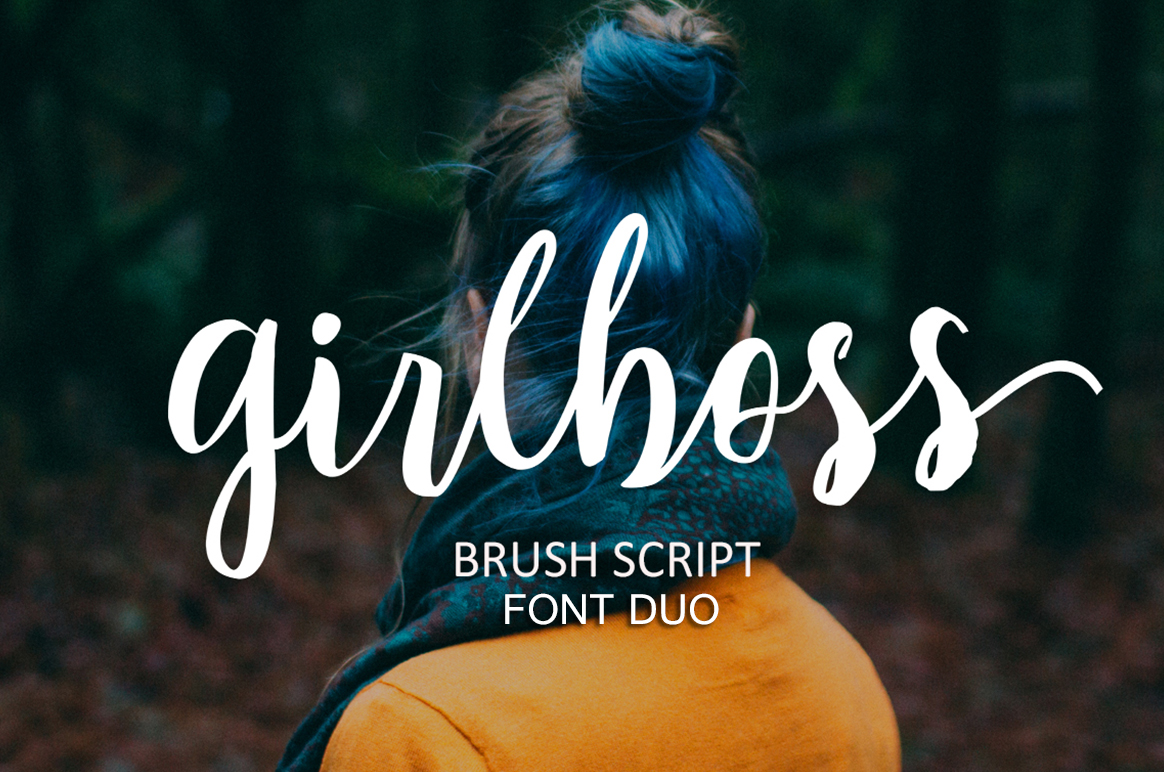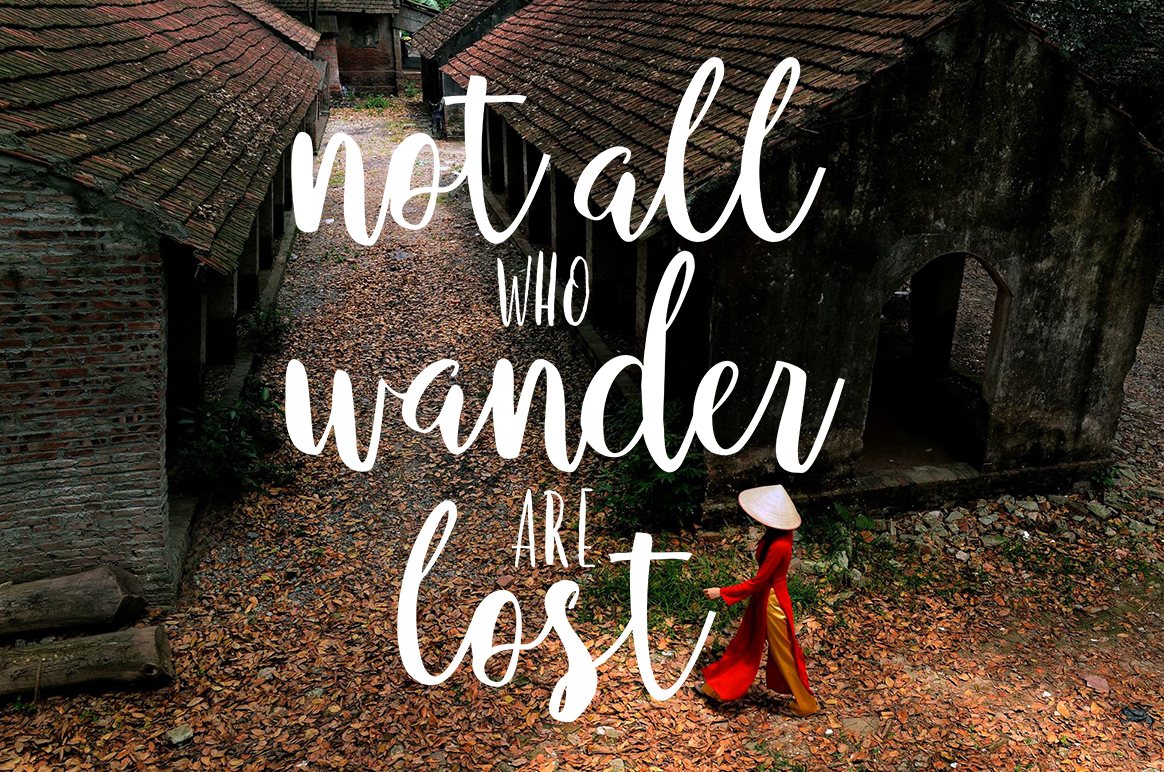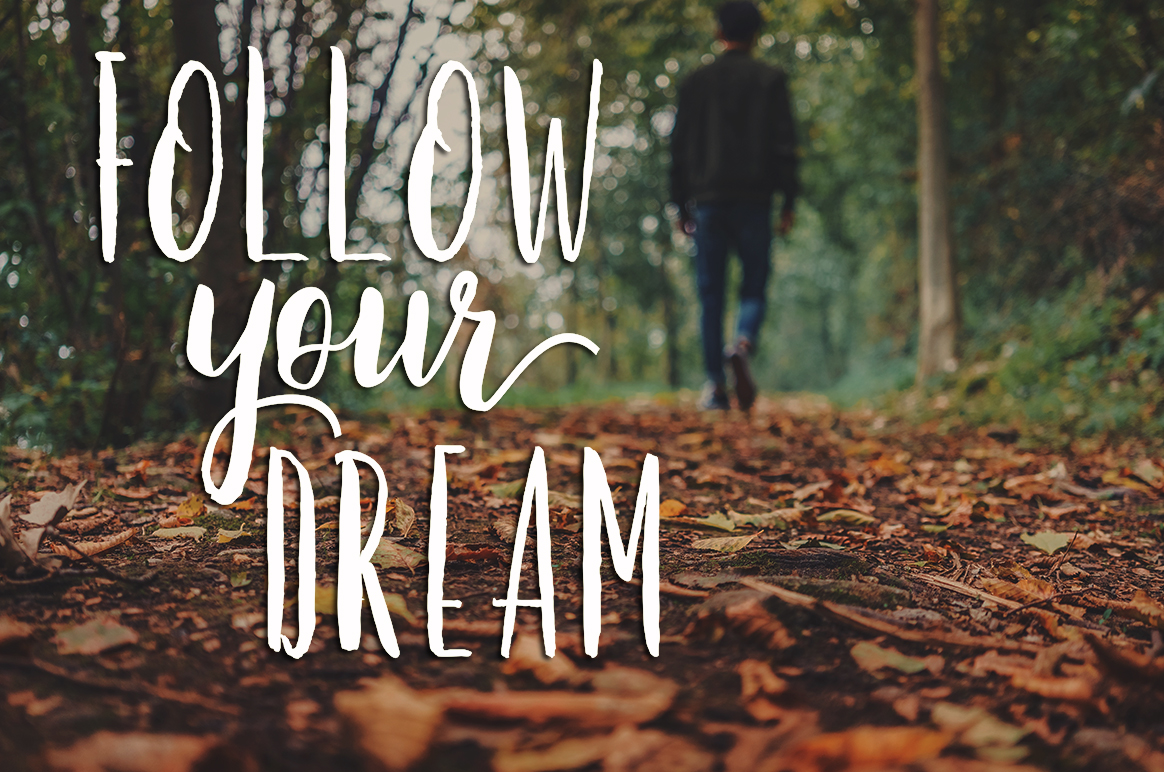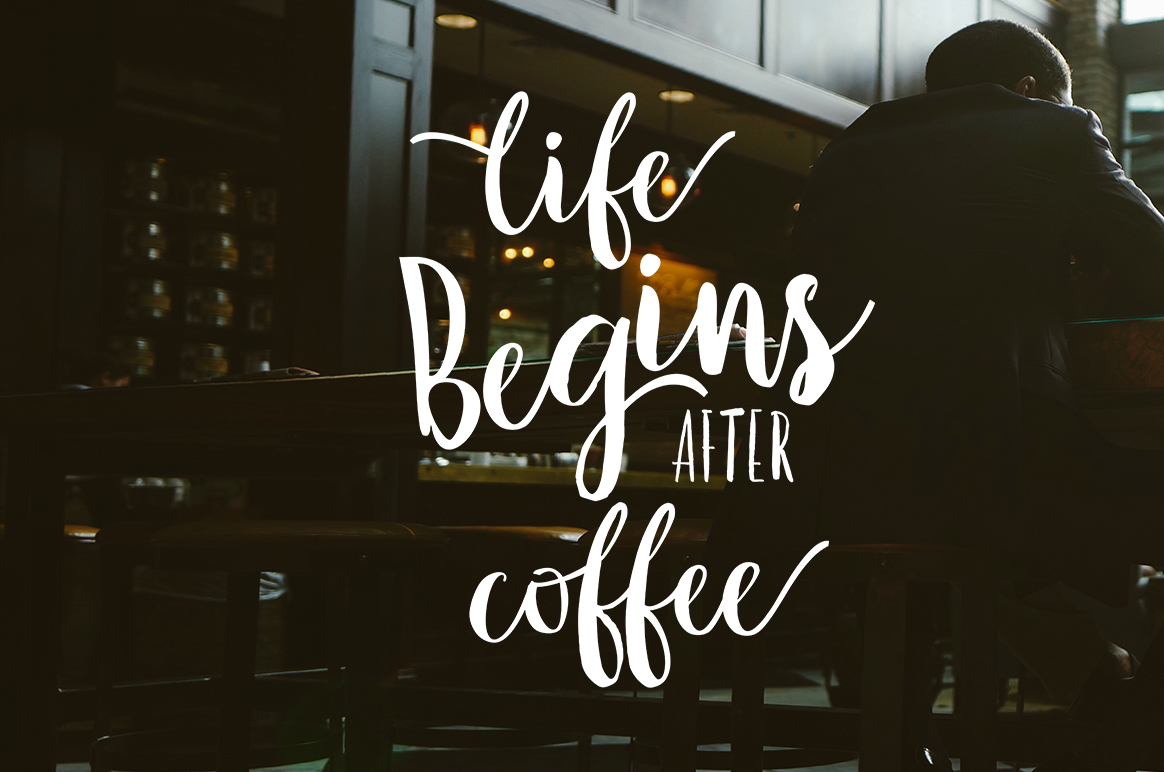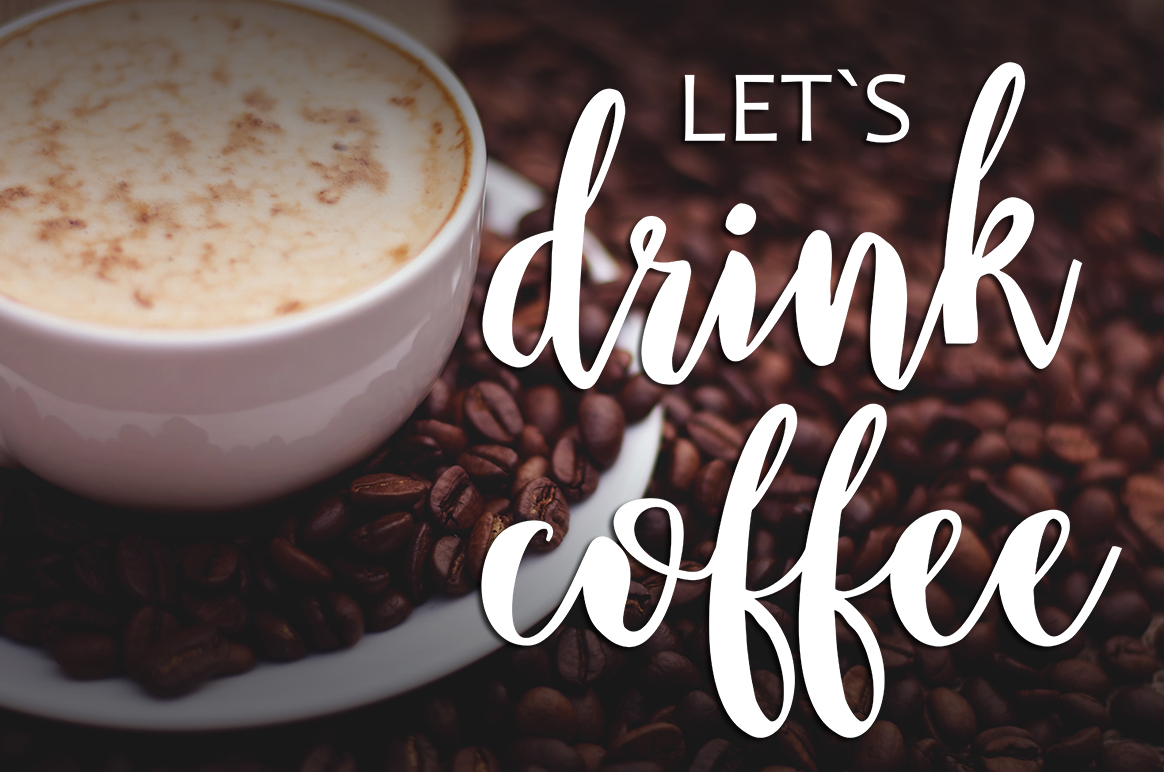
Girlboss Script Font
About Girlboss Script Font
Girlboss Script is a modern hand-drawn brush font with a dynamic, energetic style.  Both feminine and in charge, this script is definitely becoming of its namesake.